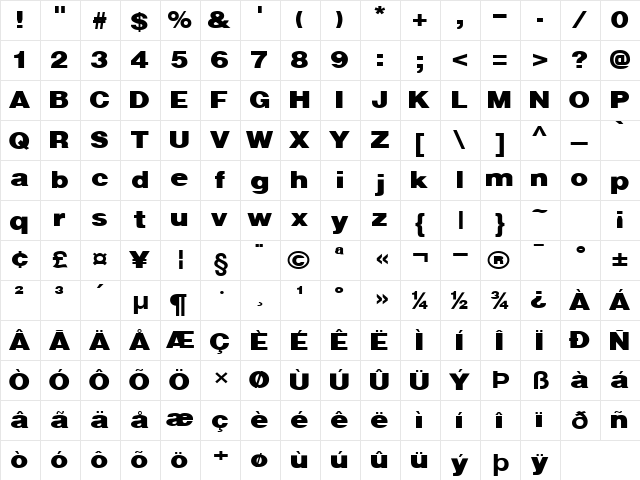
Kathryn-Extended Normal
Design Context for Kathryn-Extended Typeface
Kathryn-Extended is a composed and adaptable typeface that performs quietly and consistently across a wide range of design contexts.